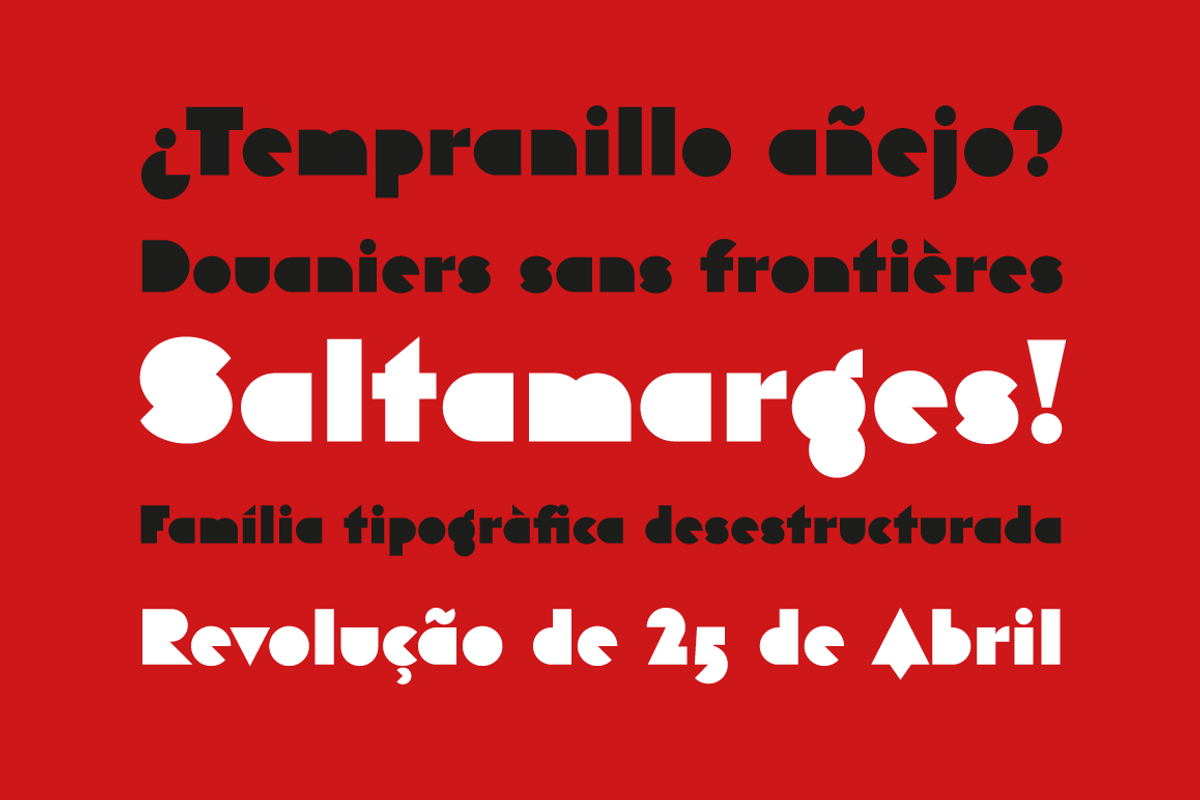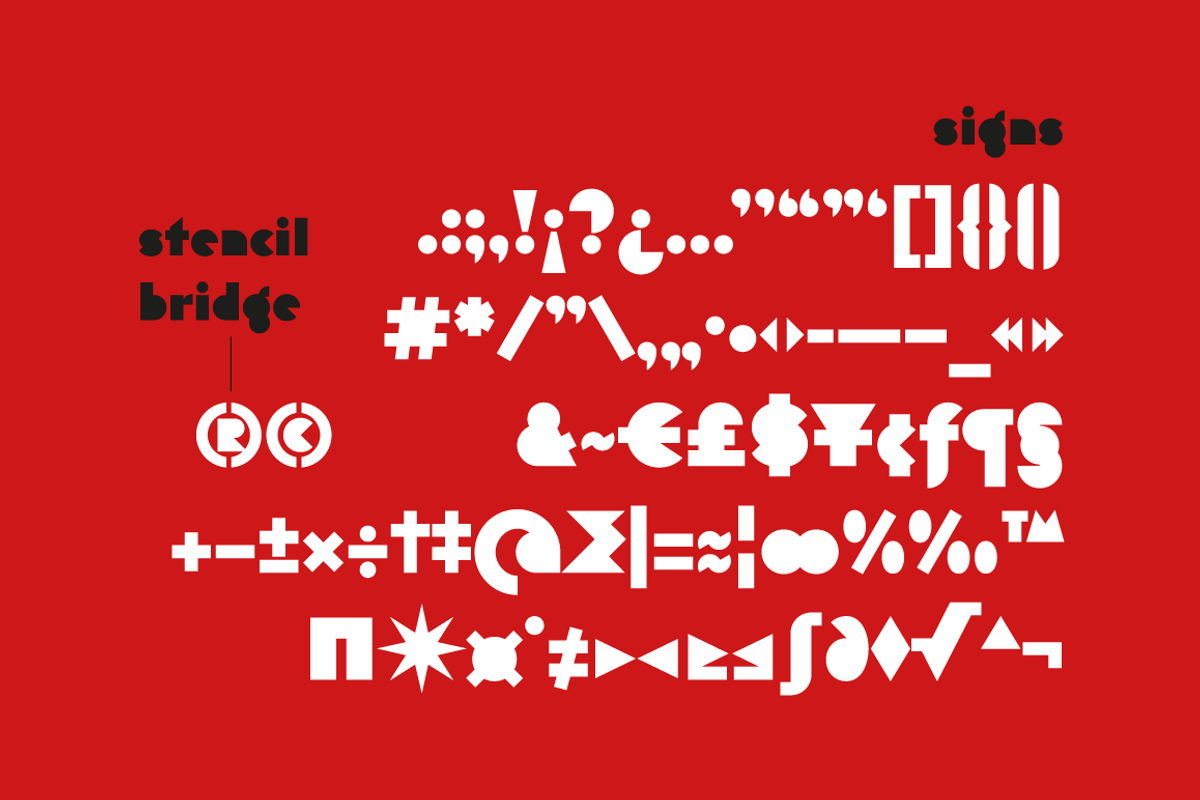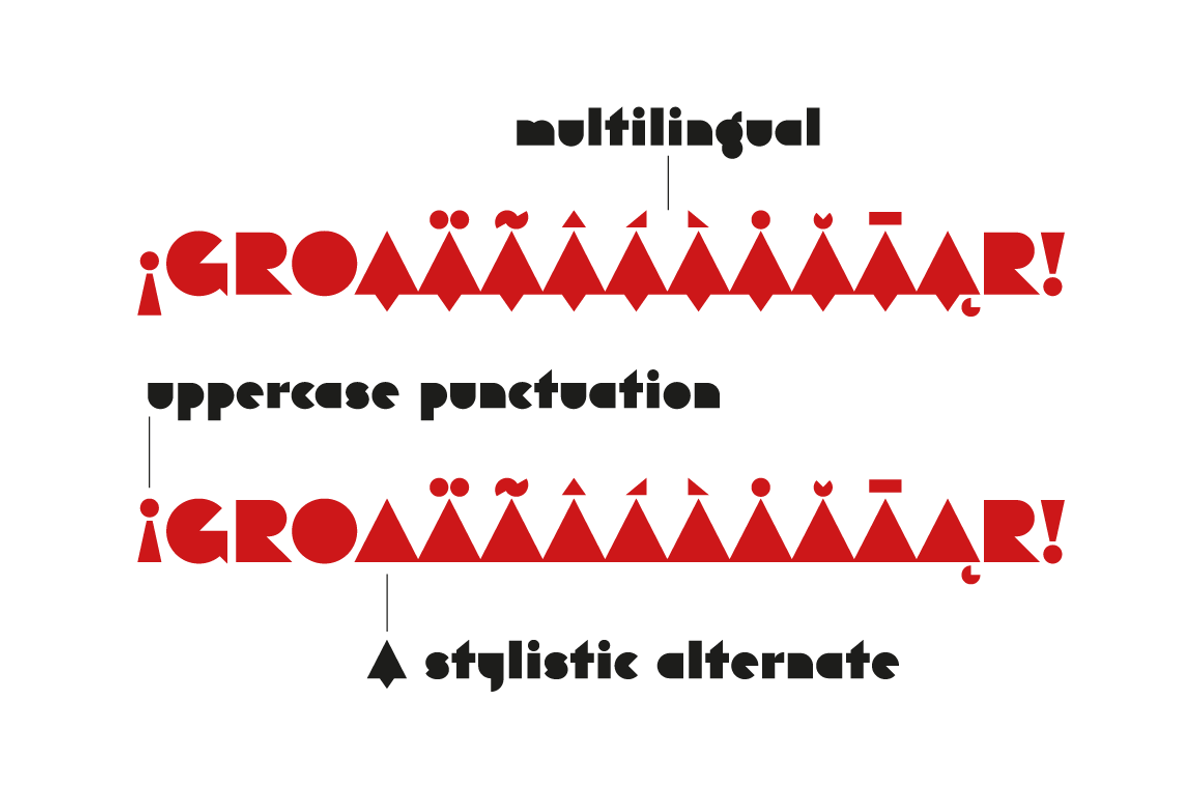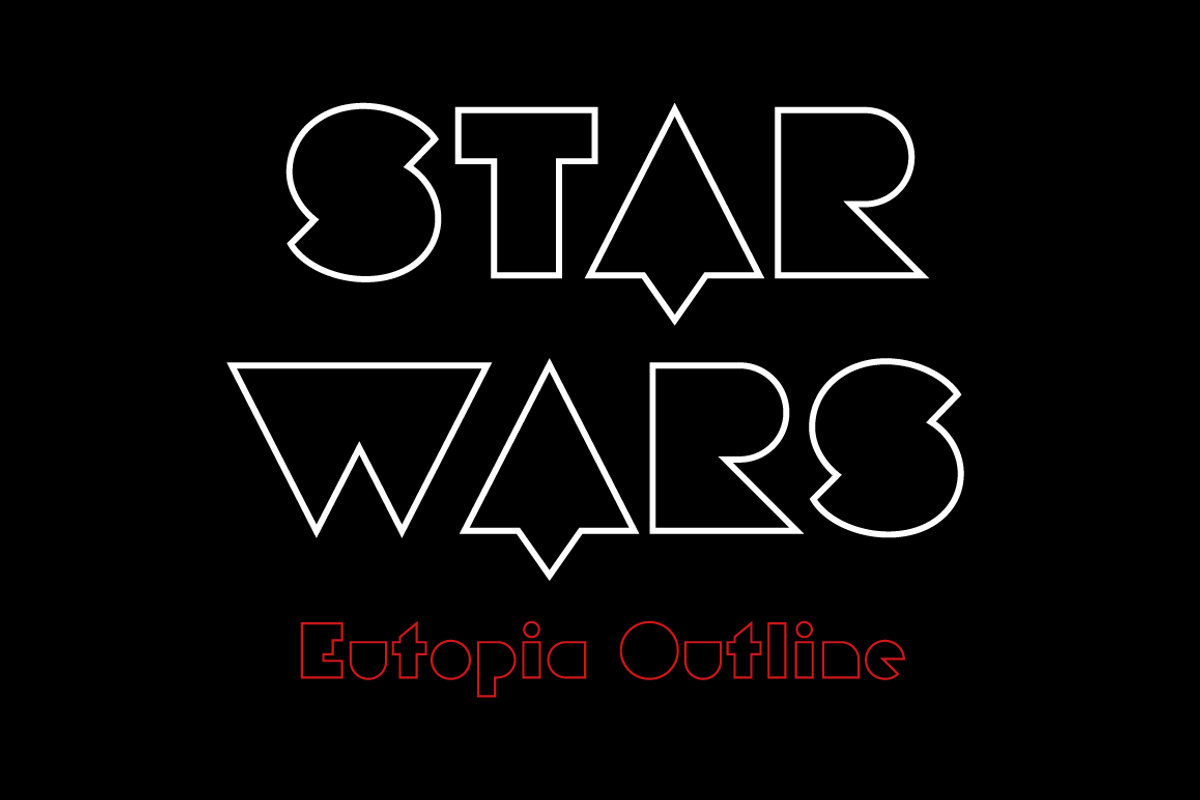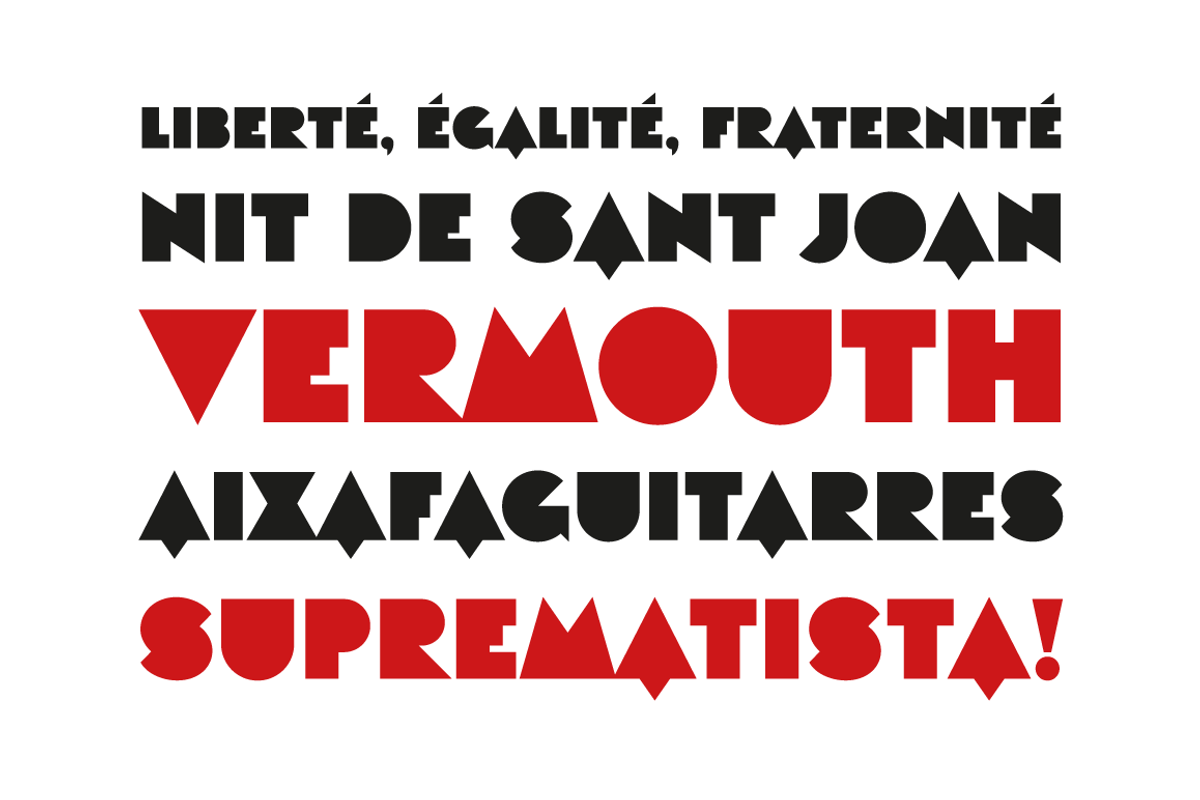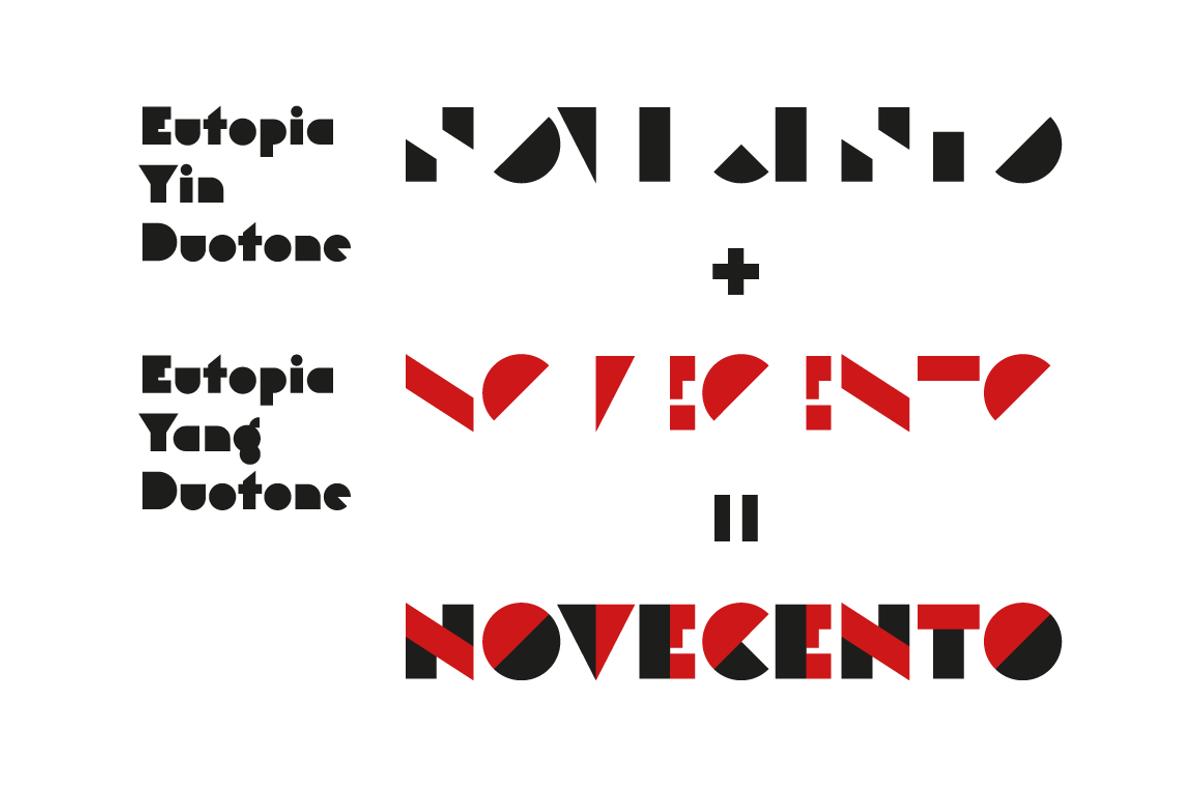
Eutopia Typeface (7 Fonts)
Eutopia Typeface (7 Fonts) by Tipofil is a font selected for branding, posters, packaging, typography.
- I was inspired by the letters of the mythical “Ideales” tobacco package, designed in 1936 in Barcelona by Carlos Vives, director of the desi
- We have also studied other geometrical models from the 1920s, to be highlighted among them the alphabet drawn by Cornelis André Vlaanderen a
- I was inspired by the letters of the mythical “Ideales” tobacco package, designed in 1936 in Barcelona by Carlos Vives, director of the desi
- We have also studied other geometrical models from the 1920s, to be highlighted among them the alphabet drawn by Cornelis André Vlaanderen a
- For that purpose almost 400 glyphs have been designed and more than 2200 kerning pairs have been defined.
- The multiple diacritic signs have been prepared to allow a multilingual use in most of the languages based on latin alphabet.
- The OpenType features have been used to get alternate characters of “A” and “g”, and also ligatures, lowercase numbers and other typographic
- Eutopia Normal
- Eutopia Background
- Eutopia Outline
- Eutopia Yang
- Eutopia Yang Duotone
- Eutopia Yin
- Eutopia Yin Duotone